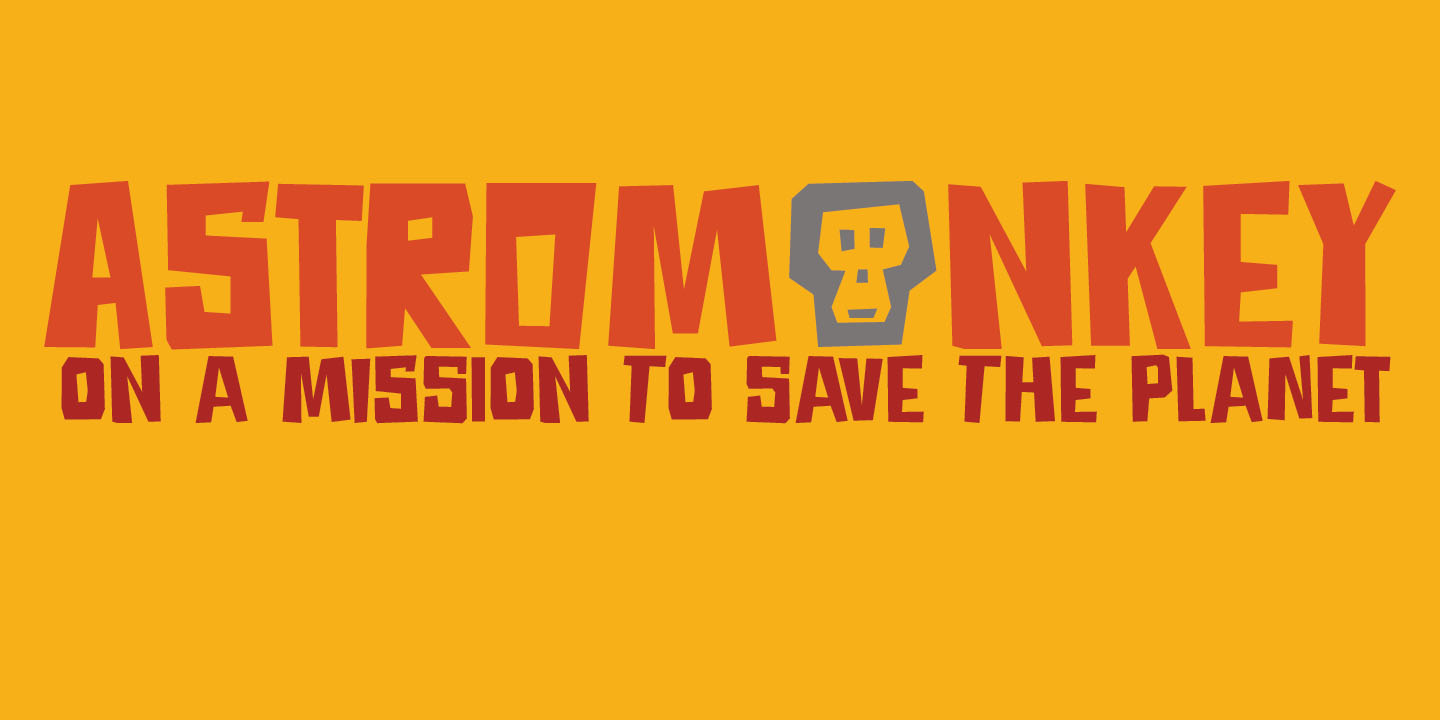
Astromonkey
Astromonkey – here he is, all new, all excited to be alive! Astromonkey comes from outer space, where he has rubbed shoulders with the Star Trekkers, the aliens and Major Tom, who is still floating in his tin can.
The font is a squarish all caps, with a different set of glyphs for upper and lower case (so they mingle quite well) and Astromonkey himself – disguised as the paragraph glyph.